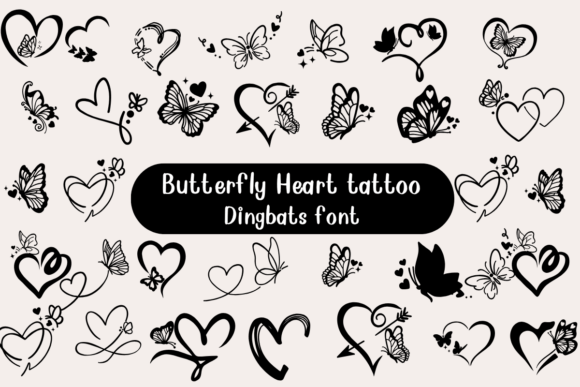
The Perfect Touch for Your Design
There’s nothing quite like the feeling of staring at a blank canvas, waiting for inspiration to strike. It’s that moment when creativity sparks, and your imagination runs wild. Whether you’re working on a new project or simply looking for a fresh way to express yourself, the right font can be the key to unlocking your true artistic potential.
Enter the Butterfly Heart Tattoo Font – a cool and unique dingbats font that adds a touch of whimsy and charm to any design. This versatile font is perfect for adding a personal touch to your creative projects, from custom invitations and greeting cards to social media graphics and merchandise.
Butterfly Heart Tattoo Font Key Features
- Unique Hand-Drawn Design: The font features a delicate, hand-drawn design inspired by traditional tattoo art, giving it a distinctive and eye-catching appearance.
- Unique Character Set: Includes a range of unique characters, including swashes and flourishes, to add a touch of elegance and sophistication to any design.
Designer Review: Butterfly Heart Tattoo Font
Overall, I was pleasantly surprised by the Butterfly Heart Tattoo Font. Here are a few things that I think work well:
- ✨ Unique and whimsical design: The font has a lovely, ethereal quality to it that makes it perfect for tattoo designs or other projects where you want to add a touch of magic.
- ✨ Good for hand-lettering: The font is well-suited for hand-lettering projects, as it has a natural, flowing feel that makes it easy to write by hand.
- ✨ Large character set: The font includes a wide range of characters, including accented letters and punctuation, making it easy to use in a variety of contexts.
However, I did encounter a few limitations:
- ⚠️ Limited font sizes: While the font looks great at larger sizes, it can become a bit blurry and difficult to read at smaller sizes.
- ⚠️ Not ideal for body text: Due to its whimsical design, the font may not be the best choice for large blocks of body text, where readability is key.
Overall, I think the Butterfly Heart Tattoo Font is a great choice for projects where you want to add a touch of personality and whimsy. While it may not be the best choice for every project, it’s a great option to have in your font arsenal.
The Butterfly Heart Tattoo Font is ideal for designs that require a whimsical and romantic touch.
Use it for:
Valentine’s Day designs and cards
Birthday and anniversary designs
Any design that requires a touch of elegance and romance